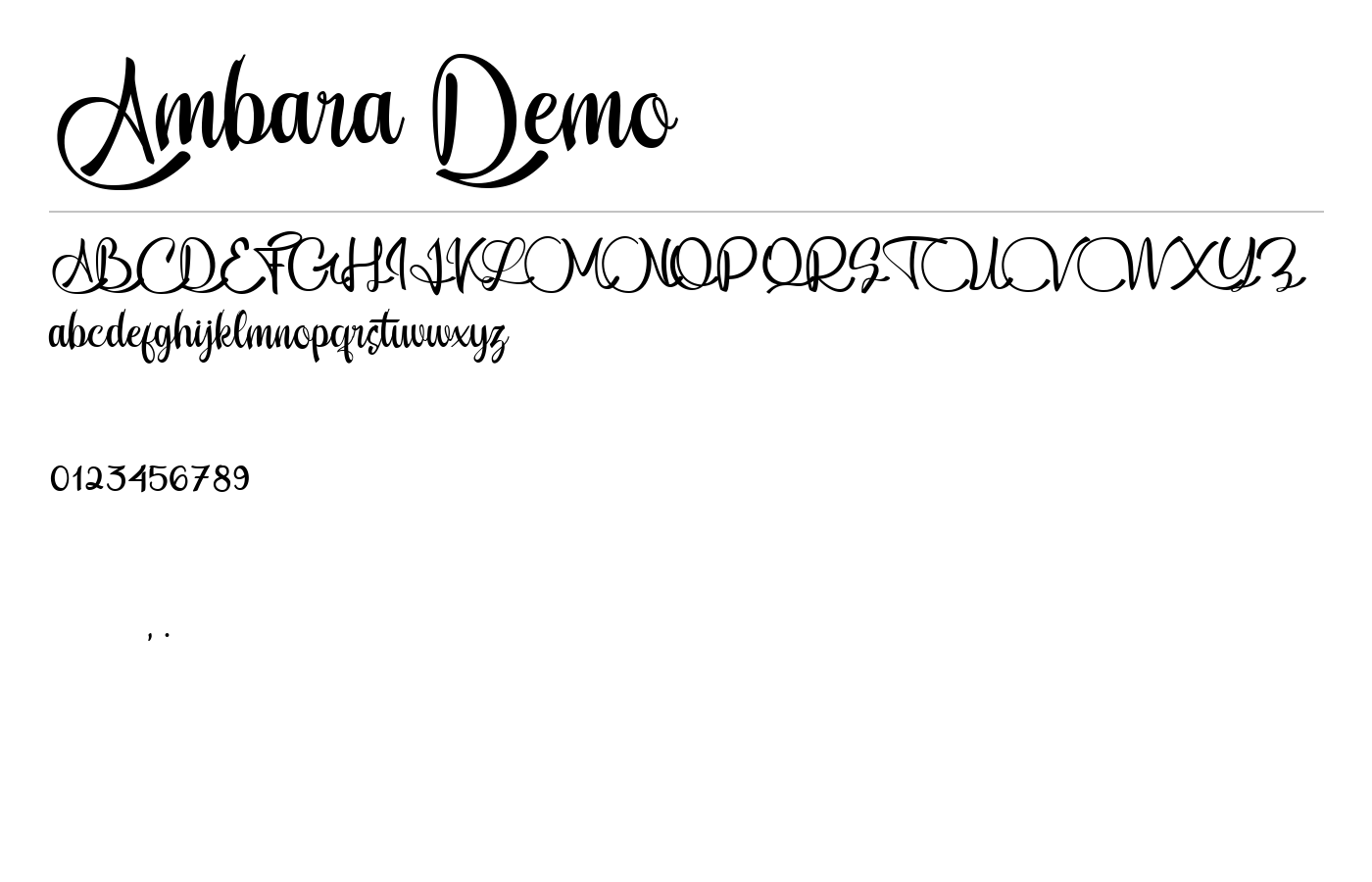
Ambara_Demo is a stylish script font that features flowing, decorative letterforms with elegant swashes and smooth curves. Its high contrast strokes and calligraphic style give it a sophisticated and artistic feel, perfect for branding, invitations, or any design that needs a touch of elegance and personality. This font works best in headlines or display settings where its unique character shapes can shine and capture attention.
Ambara_Demo Font
About Ambara_Demo Font
| Font family | Ambara_Demo Font |
| Designer | Sadat Fauzi |